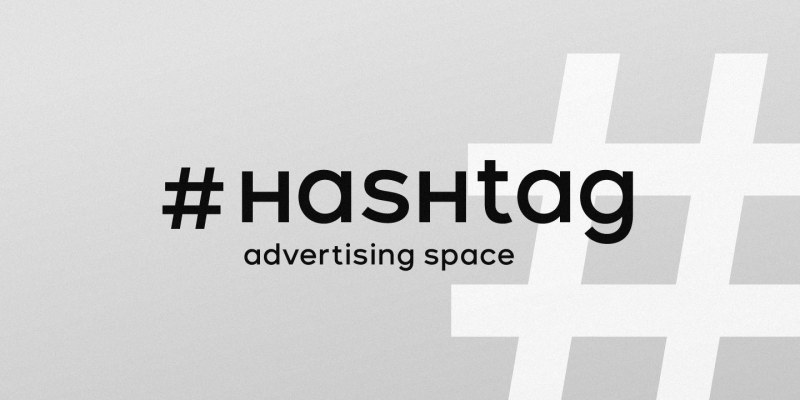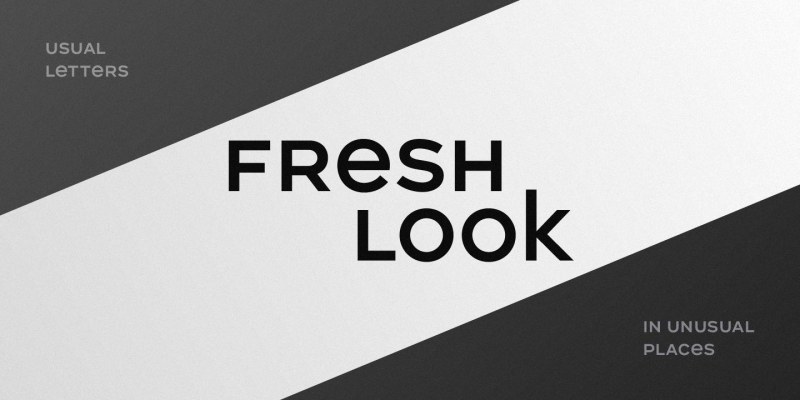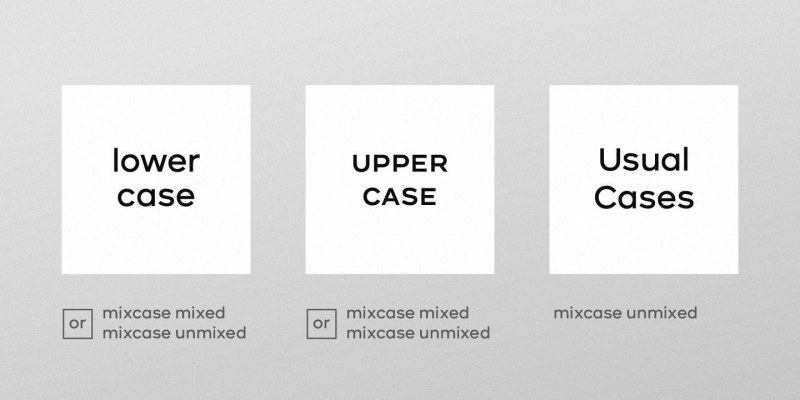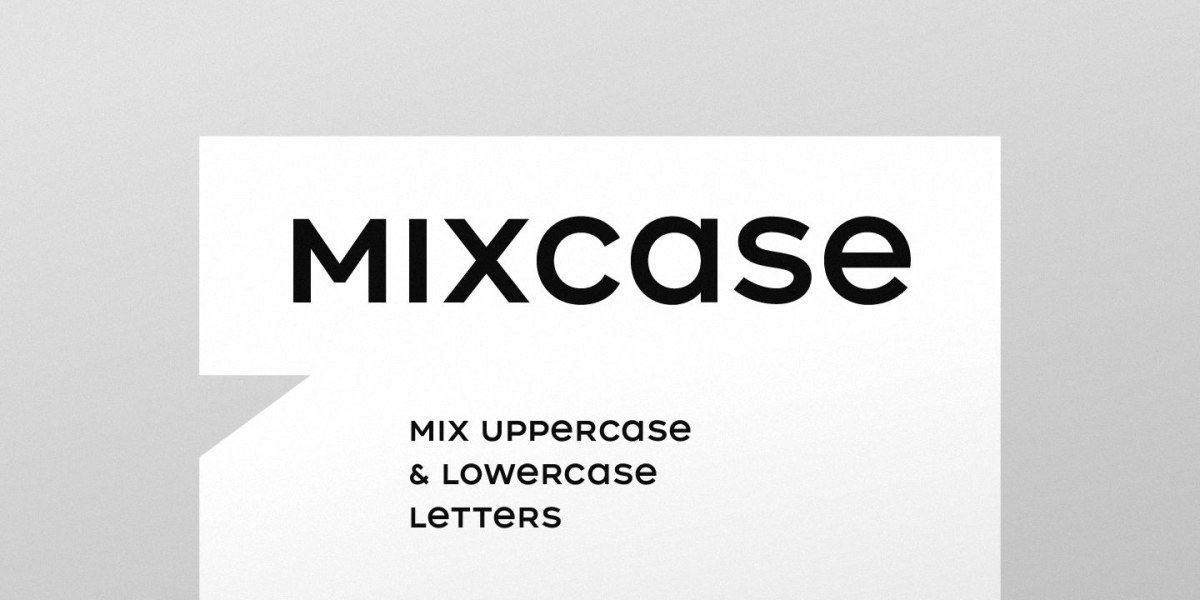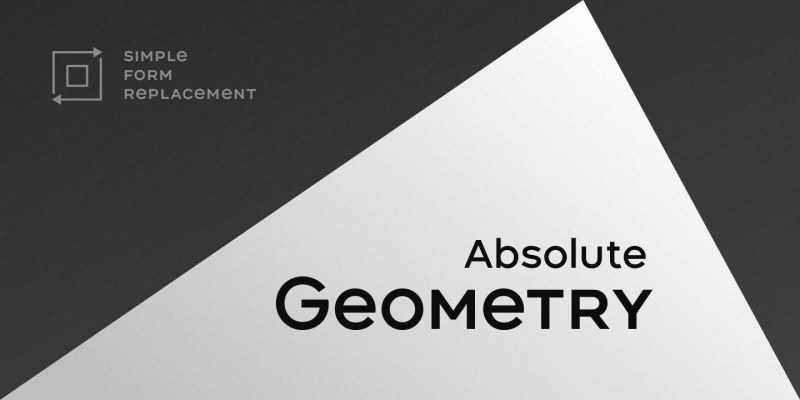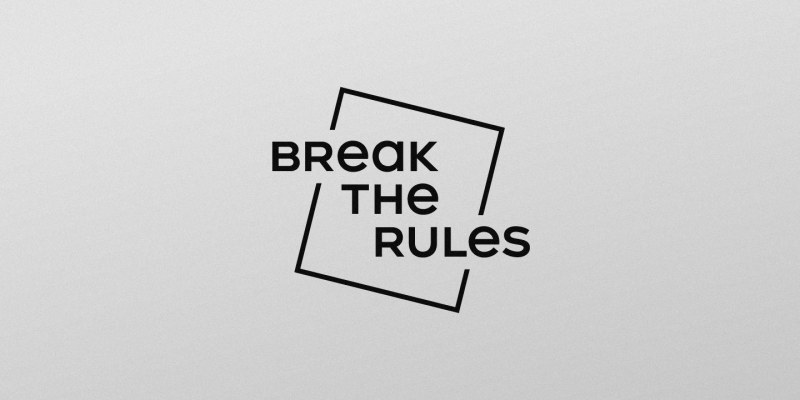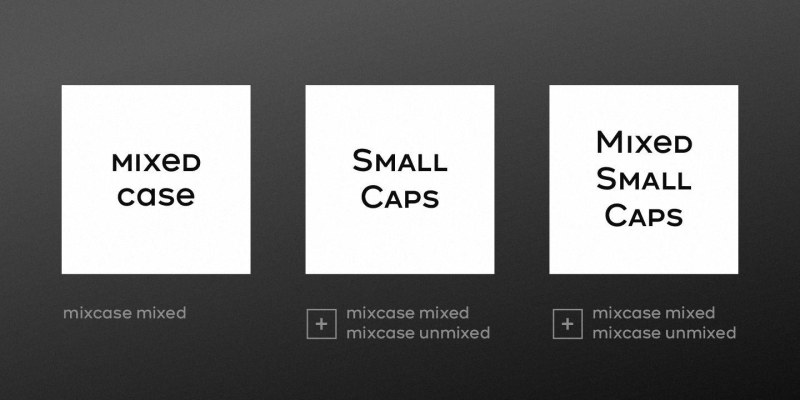
Mixcase Font Family
Mixcase font family is suitable for creating logos, wordmarks, titles, taglines. The properties of uppercase letters, numbers, punctuation and extra characters in Mixcase Mixed font are the same as those of lowercase letters, which allows to combine letters of both cases in different ways. All characters in Mixcase Unmixed font have normal ratios, so it can be used as typesetting font. The combination of both fonts provides additional use cases in the form of small caps and mixed small caps.
Mixcase Font Family is a Sans Serif Fonts font that brings a professional and versatile look to your projects. Mixcase font family is suitable for creating logos, wordmarks, titles, taglines.